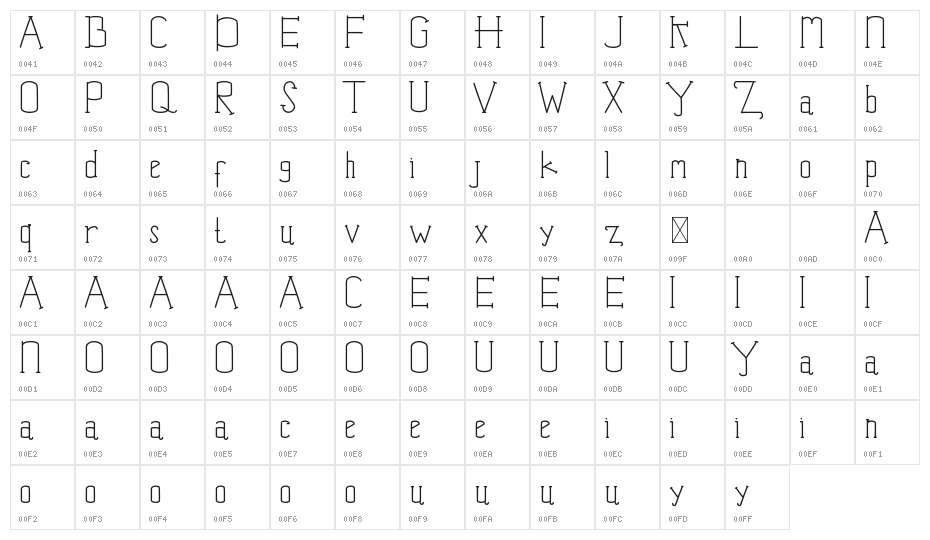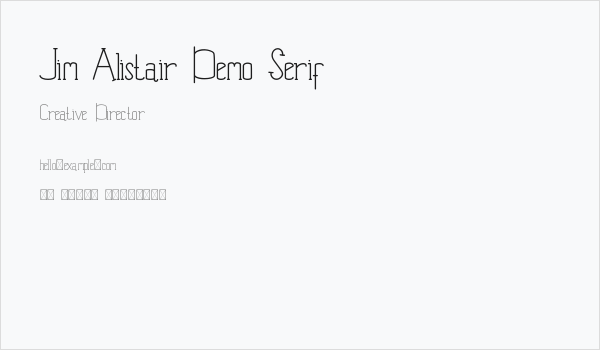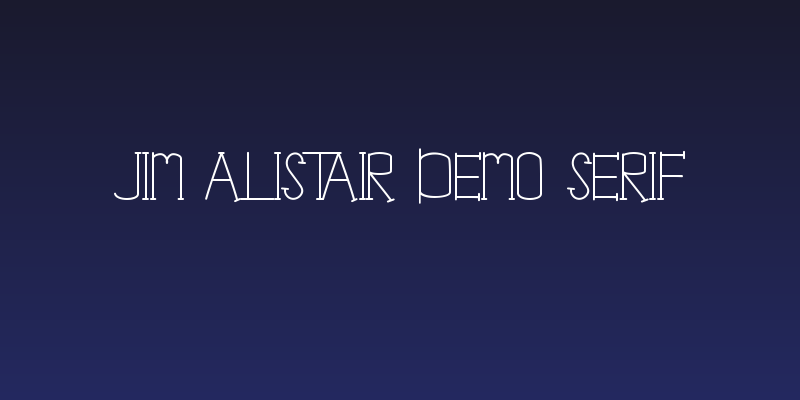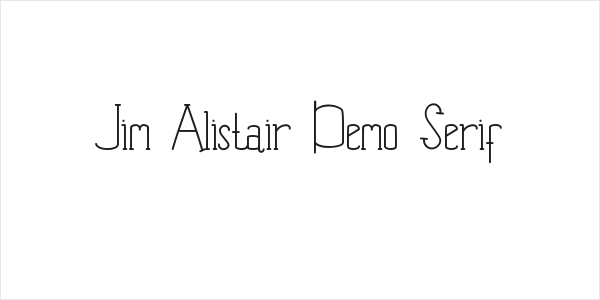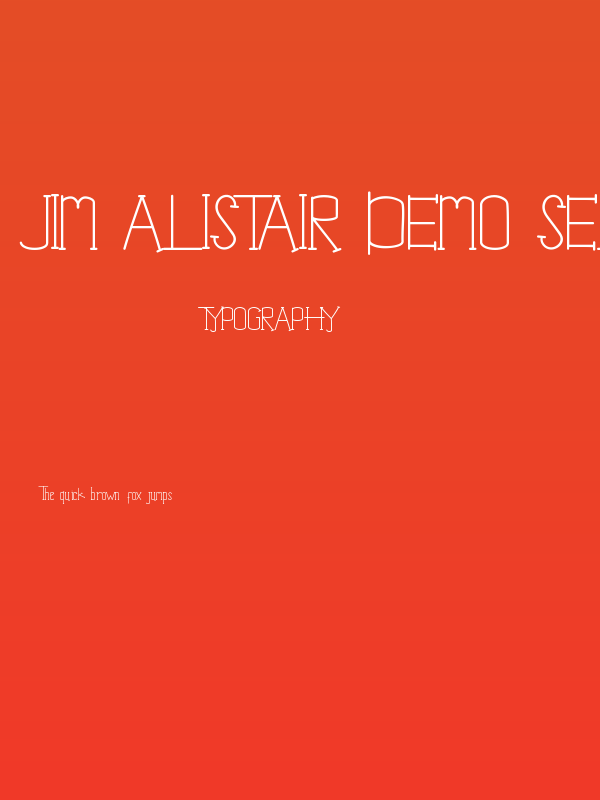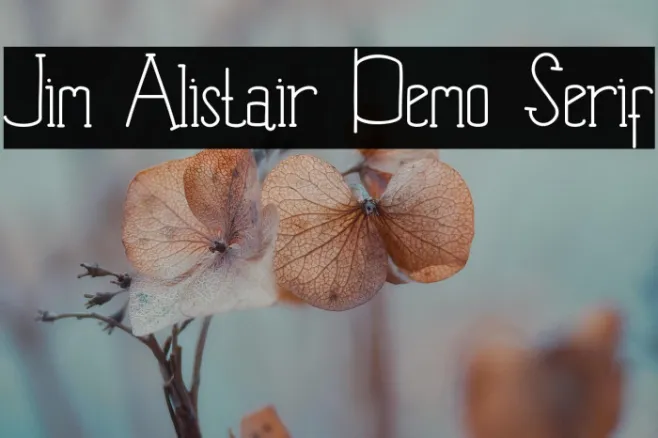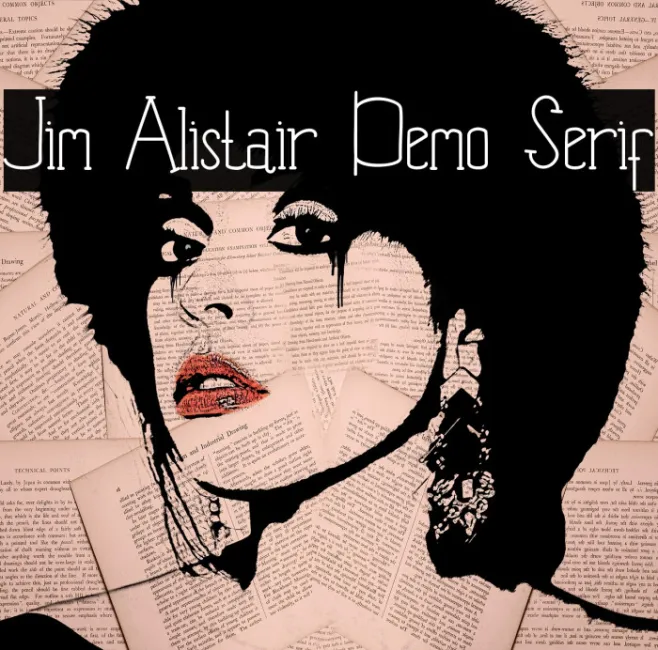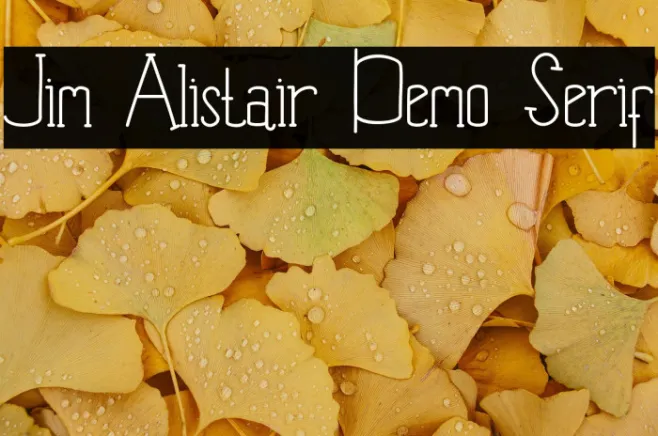
Jim Alistair Demo Serif Font
Jim Alistair Demo Serif Description
This font features a unique and artistic design with elongated, thin strokes and a distinctive geometric style. The characters are crafted with a blend of straight lines and subtle curves, creating a modern yet slightly whimsical appearance. The uppercase letters are tall and narrow, while the lowercase letters maintain a consistent height, offering a harmonious balance. The font includes a full set of uppercase and lowercase letters, numbers, and a selection of special characters. Its clean lines and creative flair make it suitable for projects that require a touch of elegance and modernity.
| Proposed Projects | Ideal for branding, logos, headlines, and creative design projects that require a modern and artistic flair. |